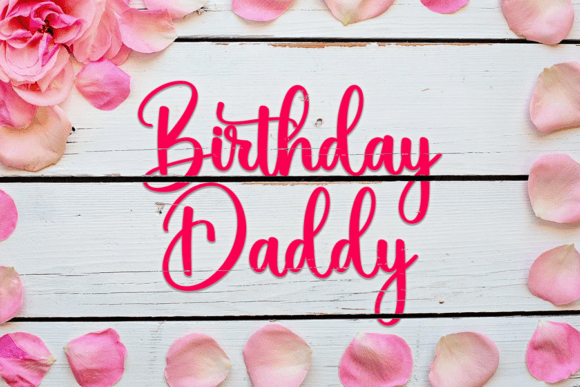
The Perfect Touch for Your Designs: Introducing Arduin Font
Have you ever stared at a blank page, trying to find the right words to express your creativity? The cursor blinks, and your mind goes blank. But then, a spark of inspiration strikes, and you start to brainstorm. That’s exactly where the Arduin Font comes in – a simple yet charming handwritten typeface that brings your designs to life.
Arduin Font is more than just a font; it’s a key to adding a personal touch to your projects. With its whimsical and quirky charm, it’s perfect for logos, wedding invitations, quotes, advertisements, and more. Whether you’re a seasoned designer or just starting out, Arduin Font is an invaluable addition to your toolkit, guaranteed to brighten up your designs and leave a lasting impression.
Arduin Font Key Features
- Unique Character Set: Arduin Font features a distinctive set of characters, including alternate glyphs and ligatures, which can be used to create visually appealing and customized typography.
- Font Weight: The font is available in multiple weights, including light, regular, medium, bold, and black, allowing designers to choose the perfect weight to suit their design style.
Arduin Font Review
Overall, I was quite impressed with the Arduin Font. It’s a beautiful, elegant script font that would be perfect for wedding invitations, menus, or any other project that requires a touch of sophistication.
- Stylish and elegant script font.
- Perfect for a variety of projects, including wedding invitations, menus, and more.
- Includes a wide range of languages, including Latin, Cyrillic, and Greek.
- May not be suitable for projects that require a bold or sans-serif font.
- Does not include a bold or italic version of the font.
Overall, I would give the Arduin Font 4 out of 5 stars. While it has some limitations, it’s a beautiful and elegant script font that would be perfect for many projects. With some additional features, such as a bold or italic version, it could be even more versatile and useful.
Arduin Font is perfect for:
- Creative headlines and titles
- Unique typography and graphics
Alternatives to Arduin Font for Designers
Open Sans is a popular sans-serif font that is highly legible and versatile. It is suitable for body text, headings, and titles, making it a great alternative to Arduin Font. Open Sans has a similar clean and modern feel to Arduin Font, but it has a slightly more neutral tone and is more suitable for digital interfaces.
Montserrat is a geometric sans-serif font that is highly readable and versatile. It is ideal for headings, titles, and body text in digital interfaces, print materials, and signage. Montserrat has a similar urban feel to Arduin Font, but it has a more modern and sleek appearance, making it suitable for a wider range of design applications.
Merriweather is a classic serif font that is highly legible and elegant. It is suitable for body text, headings, and titles in print materials, such as books, magazines, and newspapers. Merriweather has a more traditional and timeless feel compared to Arduin Font, making it a great choice for designers who want to create a classic and sophisticated look.